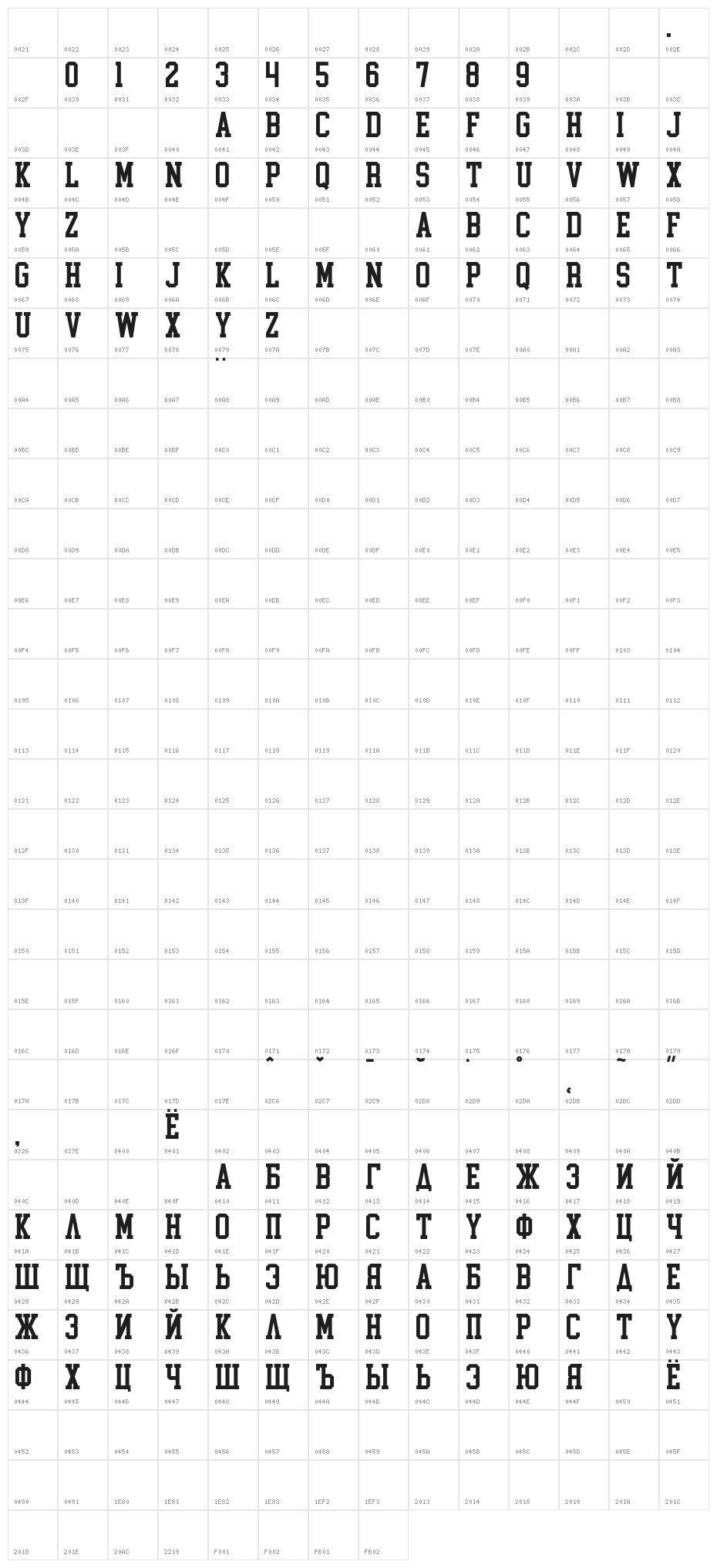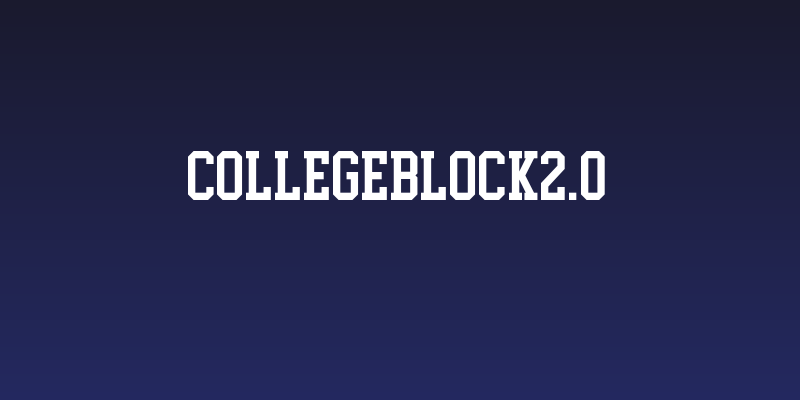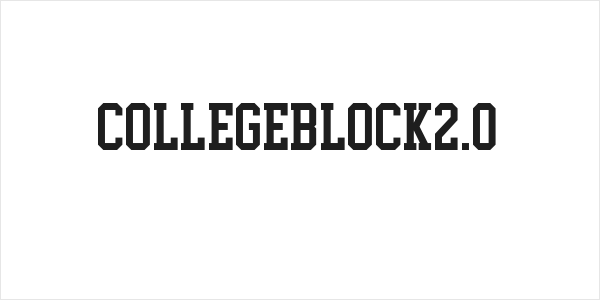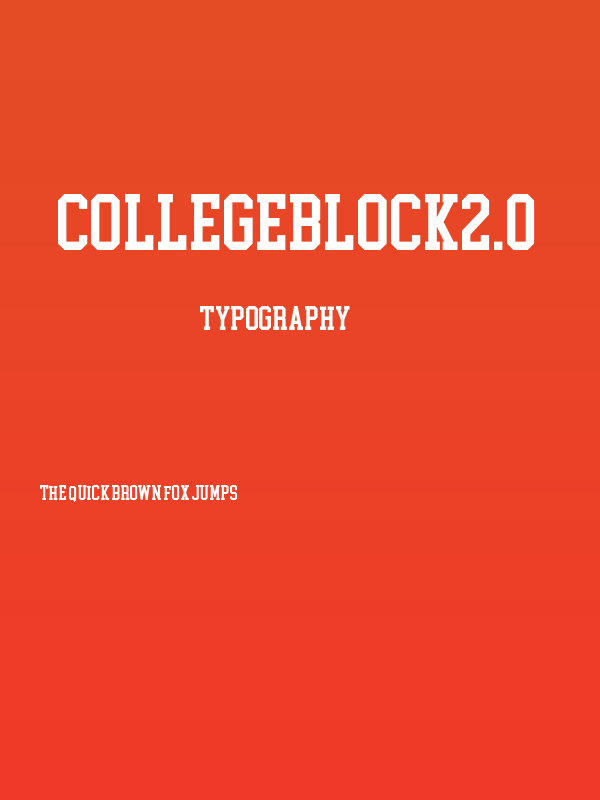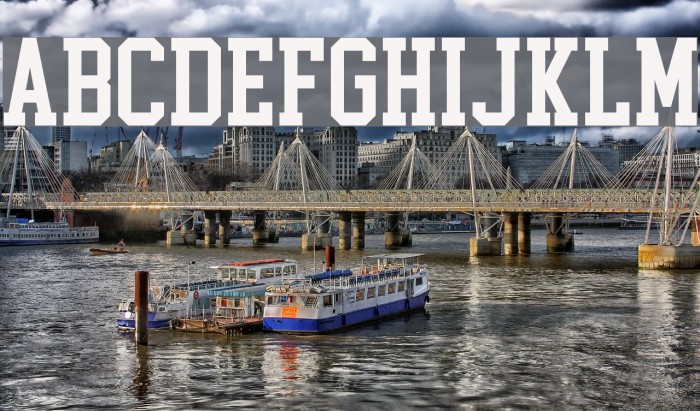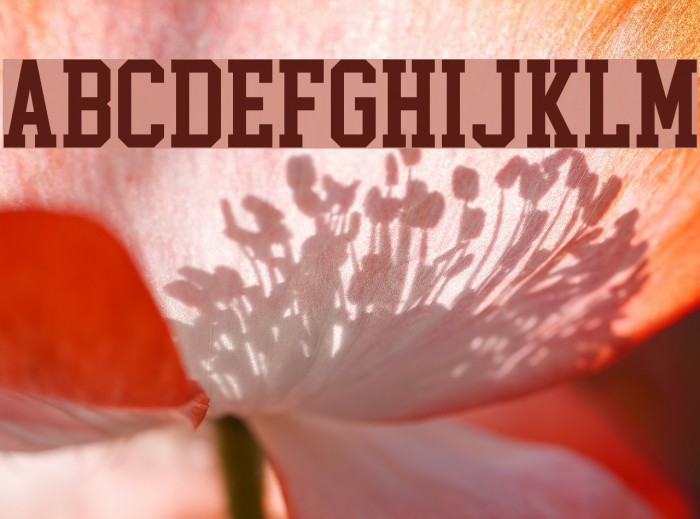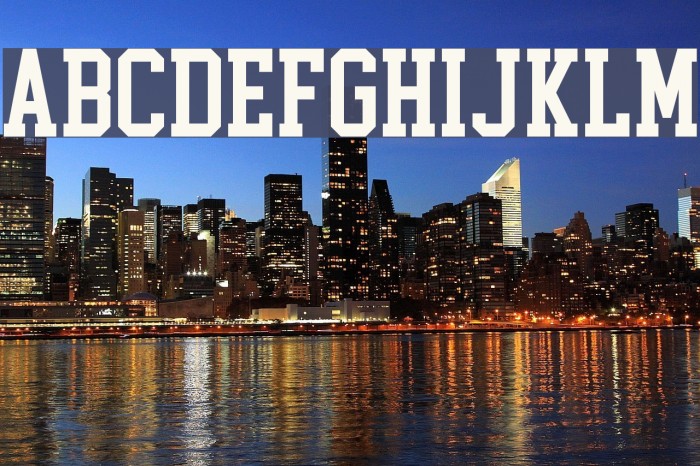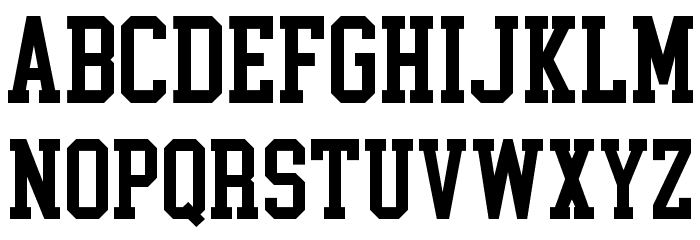
CollegeBlock2.0 Font
CollegeBlock2.0 Description
This font features a bold, blocky design with strong, angular serifs that give it a collegiate and athletic feel. The uppercase letters are uniform in height, with a consistent width that creates a solid and impactful appearance. The numbers follow the same bold style, making them highly legible and suitable for display purposes. The overall design is reminiscent of traditional varsity or sports team lettering, characterized by its robust and commanding presence. The font's structure is clean and precise, with sharp edges and a geometric form that enhances its readability and visual appeal.
| Proposed Projects | Ideal for sports team branding, college merchandise, event posters, and any project requiring a strong, impactful typeface. |